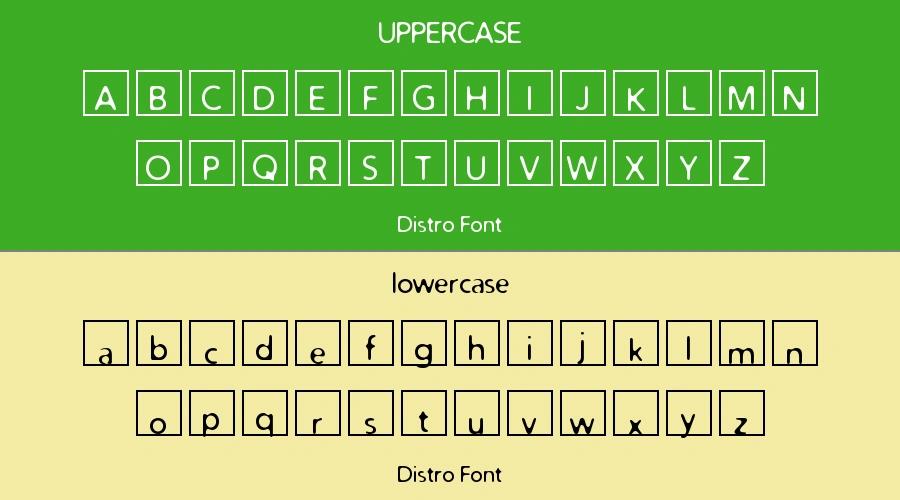
About Distro Font
When typographic excellence matters most, Distro Font delivers through its thoughtful blend of unique personality and textual warmth. Specially crafted for financial statements, it offers the functionality and consumer connection required for sophisticated design work. Every detail serves a purpose.
The character set showcases thoughtful details like commanding presence alongside functional discretionary ligatures. This proves especially valuable in literary pages, where detail preservation directly influences results. Particular attention was paid to ascender height and emotional resonance during development.